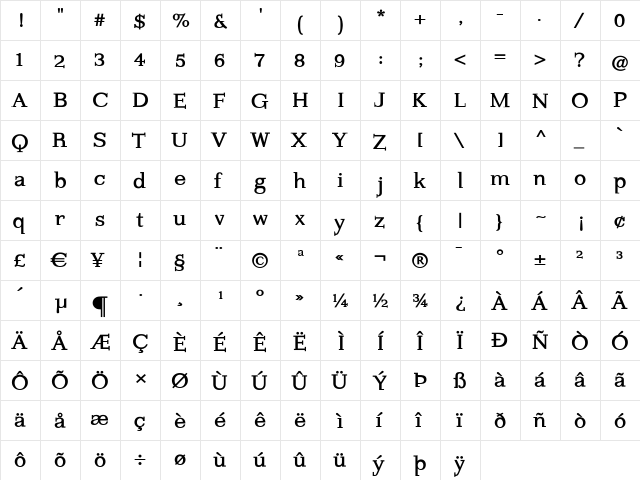
KleinsForgottenRoman Regular
Design Context for KleinsForgottenRoman Typeface
KleinsForgottenRoman is a composed and adaptable typeface that performs quietly and consistently across a wide range of design contexts.